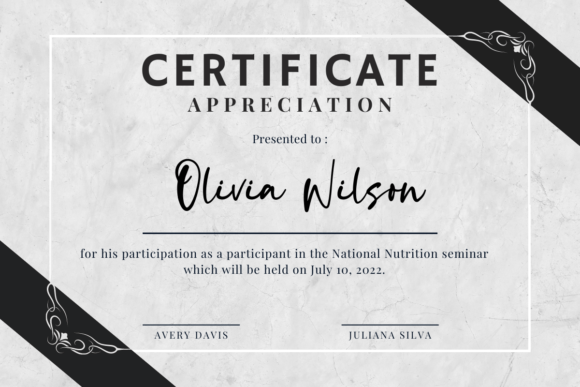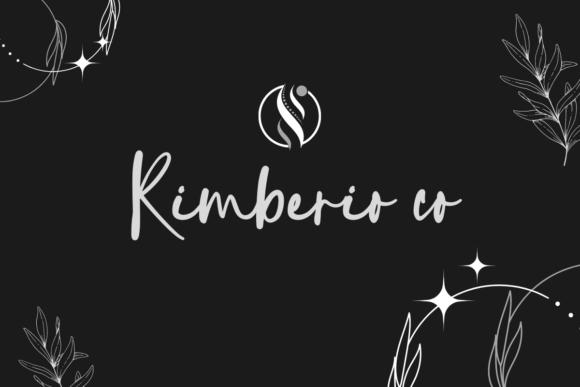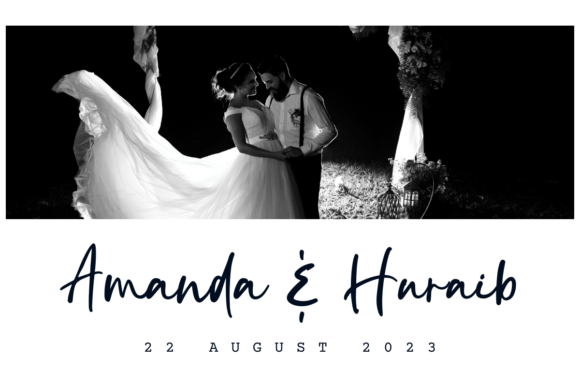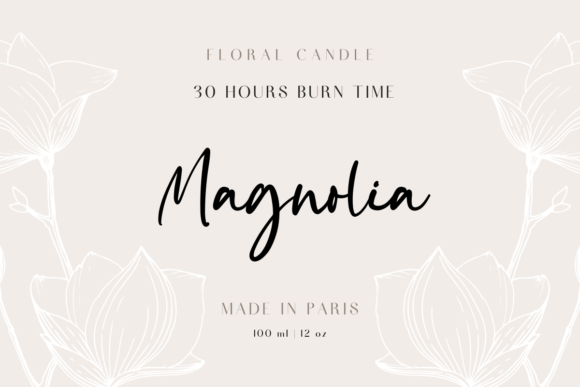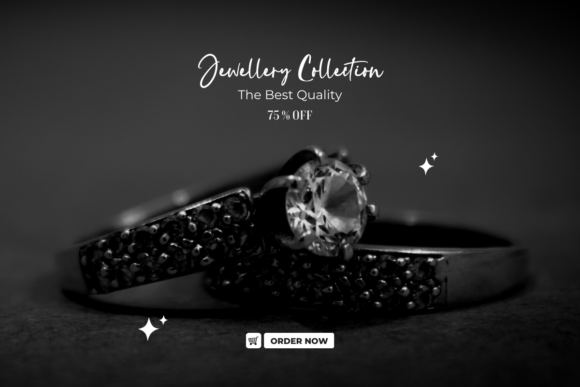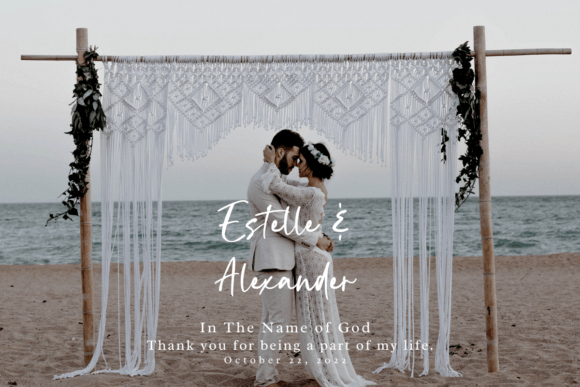
Introduction to Icelander Font
Have you ever stared at a blank canvas, unsure of where to start your next creative project? The blank page can be daunting, but sometimes all it takes is the right tool to spark inspiration. For designers, finding the perfect font can be the difference between a good project and a great one. This is where the Icelander Font comes in – a modern and stylish handwritten font that’s sure to elevate your design game.
With its incredibly versatile design, the Icelander Font is perfect for a wide range of applications, from branding and marketing materials to digital displays and creative projects. Whether you’re working on a high-quality design or just need a stylish font for a quick free download, the Icelander Font is a valuable resource for any designer.
Key Features of Icelander Font
- Unique and creative design suitable for various projects, from branding to publishing, and can be used as a design resource.
- High-quality font with a transparent background, making it easy to use in various design contexts.
- Features a high-resolution design, suitable for printing and digital use, with a resolution of 300 DPI or higher.
- Includes a range of characters and symbols, making it a versatile font for various creative projects.
- Can be used in various design applications, including Adobe Creative Cloud, Illustrator, and Photoshop.
Honest Review: Icelander Font
I recently had the chance to work with the Icelander Font, and I must say it’s been a game-changer for my creative projects. The transparent background option is a huge plus, allowing for seamless integration into my designs. The high quality of the font is also noteworthy, making it a great addition to any project.
Here are some of the things that work well with the Icelander Font:
- ✨ Transparent background option for added flexibility
- ✨ Great for designers looking for a unique and modern design resource
- ⚠️ Limited font styles available (would love to see more options in the future)
- ⚠️ Not ideal for projects that require a lot of customization
Overall, I’m impressed with the Icelander Font and would definitely recommend it to fellow designers. The free download option is a huge plus, and the quality of the font is top-notch. If you’re looking for a unique design resource, be sure to check it out!
Tips for Getting the Most Out of Icelander Font
For optimal results, use the Icelander Font in combination with a transparent background to create a striking design. Experiment with different font sizes and styles to achieve a unique look. You can also use the font in conjunction with other design elements to create a cohesive and visually appealing design.
The Icelander Font is perfect for a variety of creative projects, including logos, branding materials, and social media graphics. It’s also ideal for creating invitations, posters, and other promotional materials. With its unique and stylish design, the Icelander Font is a valuable design resource for any creative project.